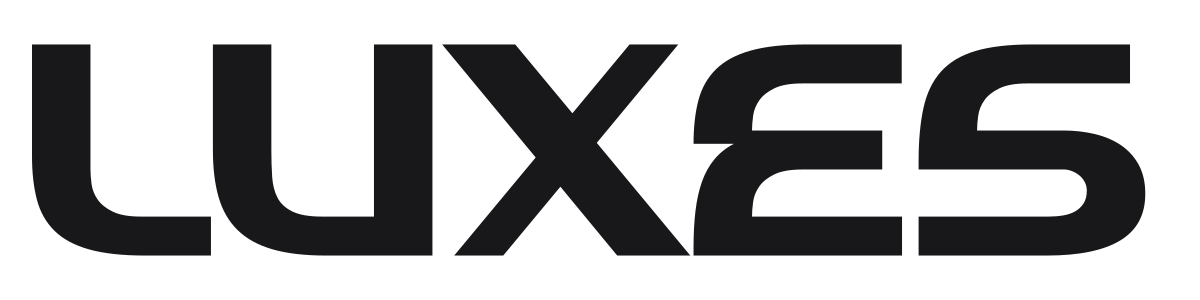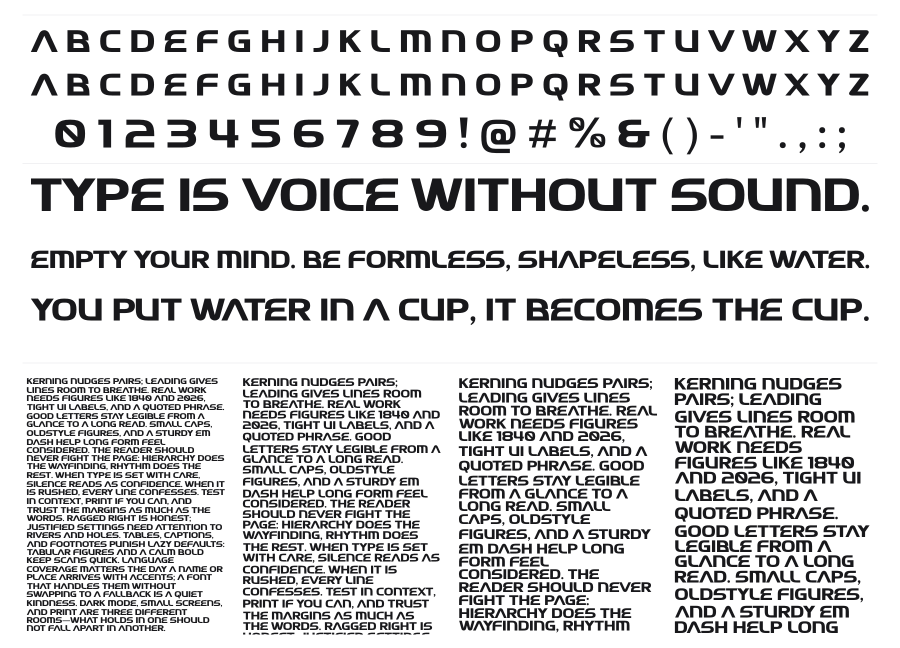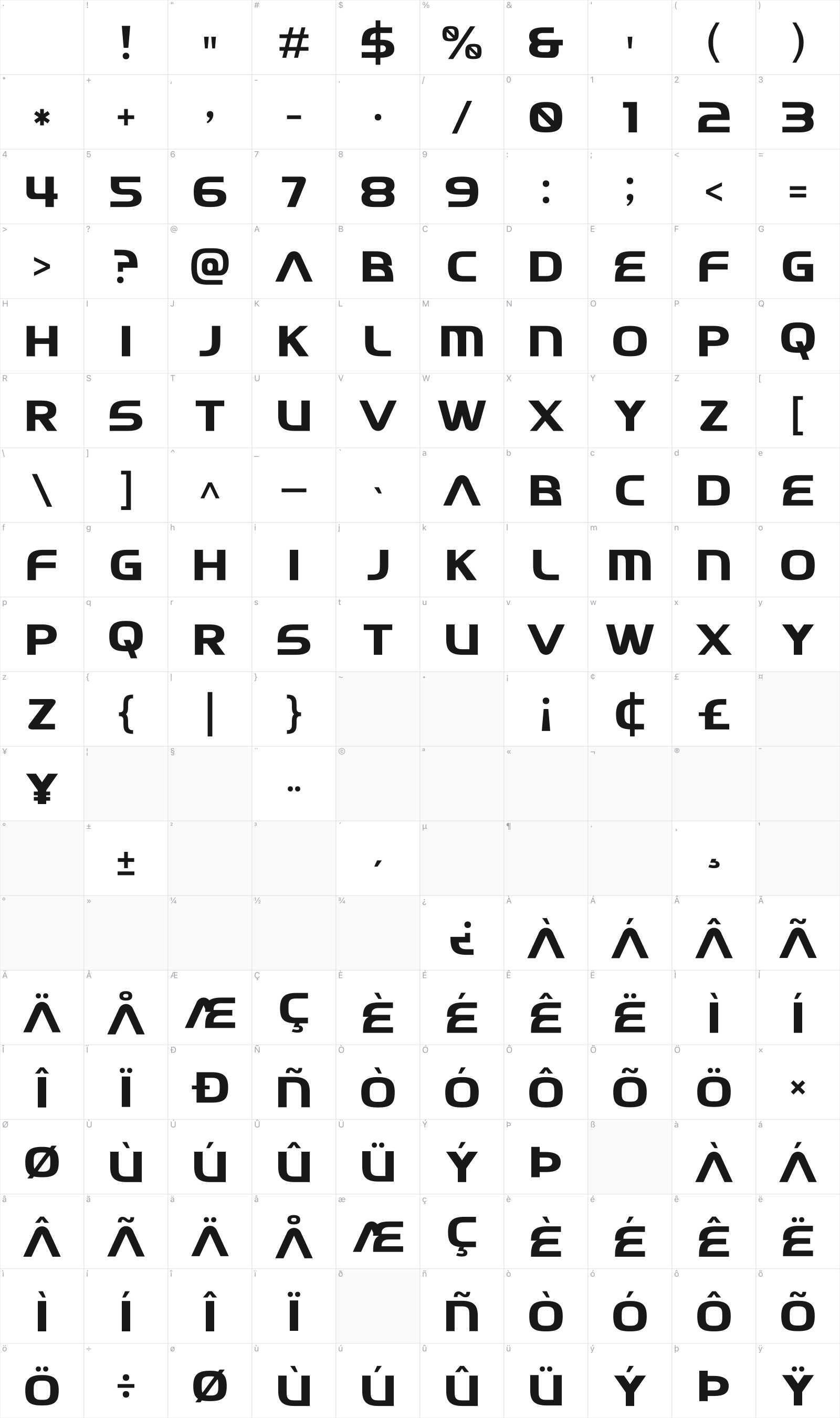
Luxes
by Faqih Fawaji
Luxes is a bold geometric sans-serif with squared terminals and a sharp, technical edge. The heavy weight and angular construction give it a futuristic quality that works well in gaming, sports, and tech branding. It carries authority at large sizes without borrowing from any retro tradition.